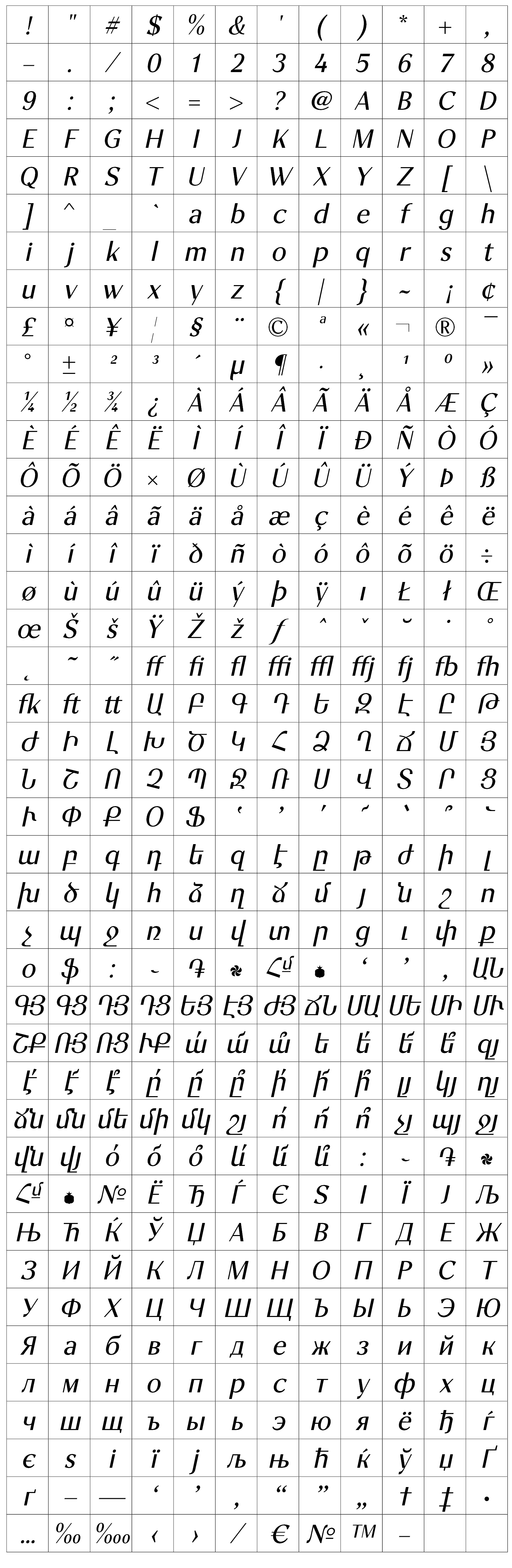
GHEA Karap Medium Italic
Design date: 2023
Writing systems: Armenian, Latin Central European, Cyrillic.
Styles: 16 (ExtraLight, Light, Regular, Medium, SemiBold, DemiBold, Bold, ExtraBold and italics).
The Sans Serif font GHEA Kaytar has an open aperture, contrast and vertical triangular serifs in round letters.
The font can be used as a text font and also title font, for books, albums, etc.